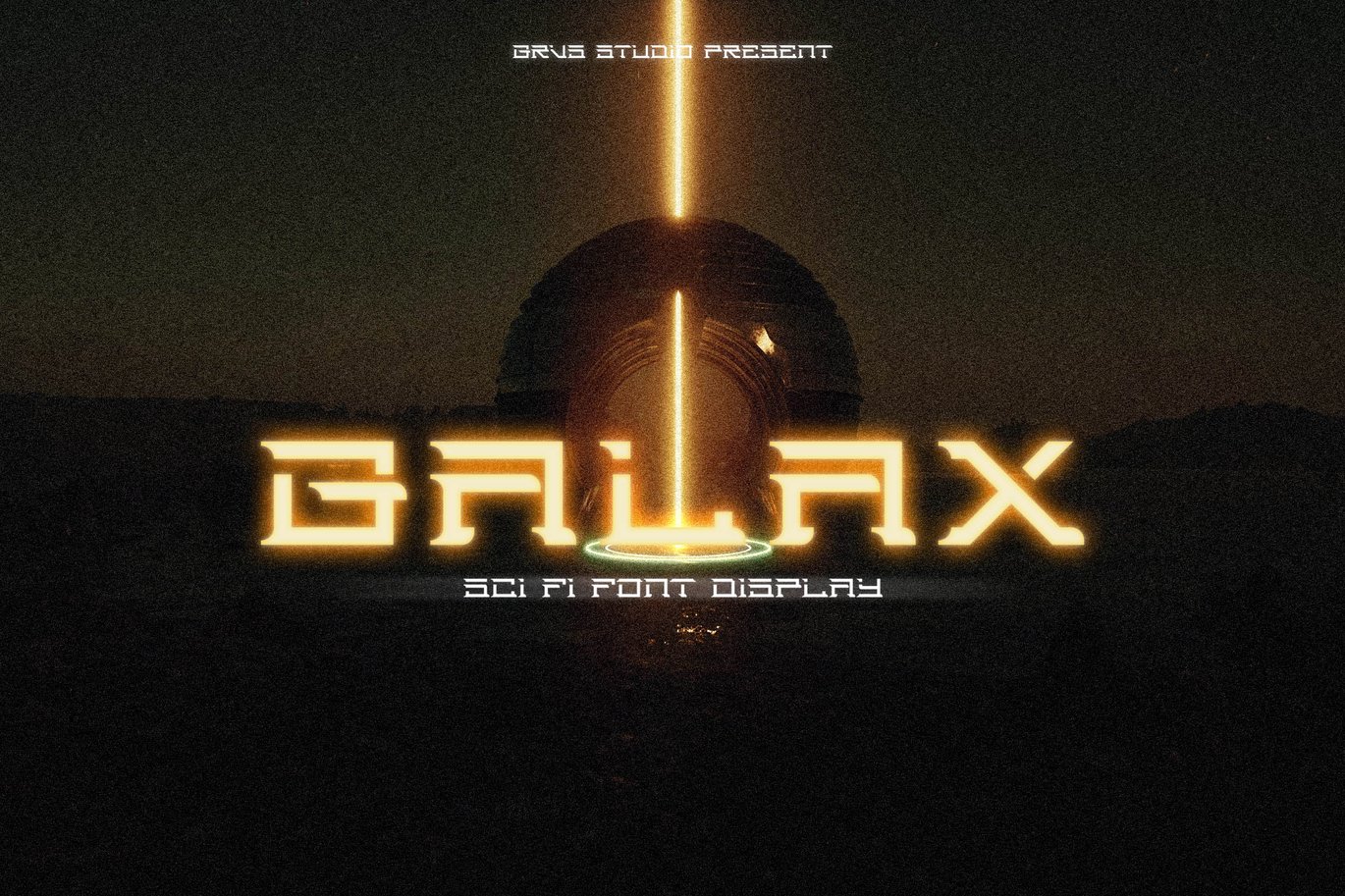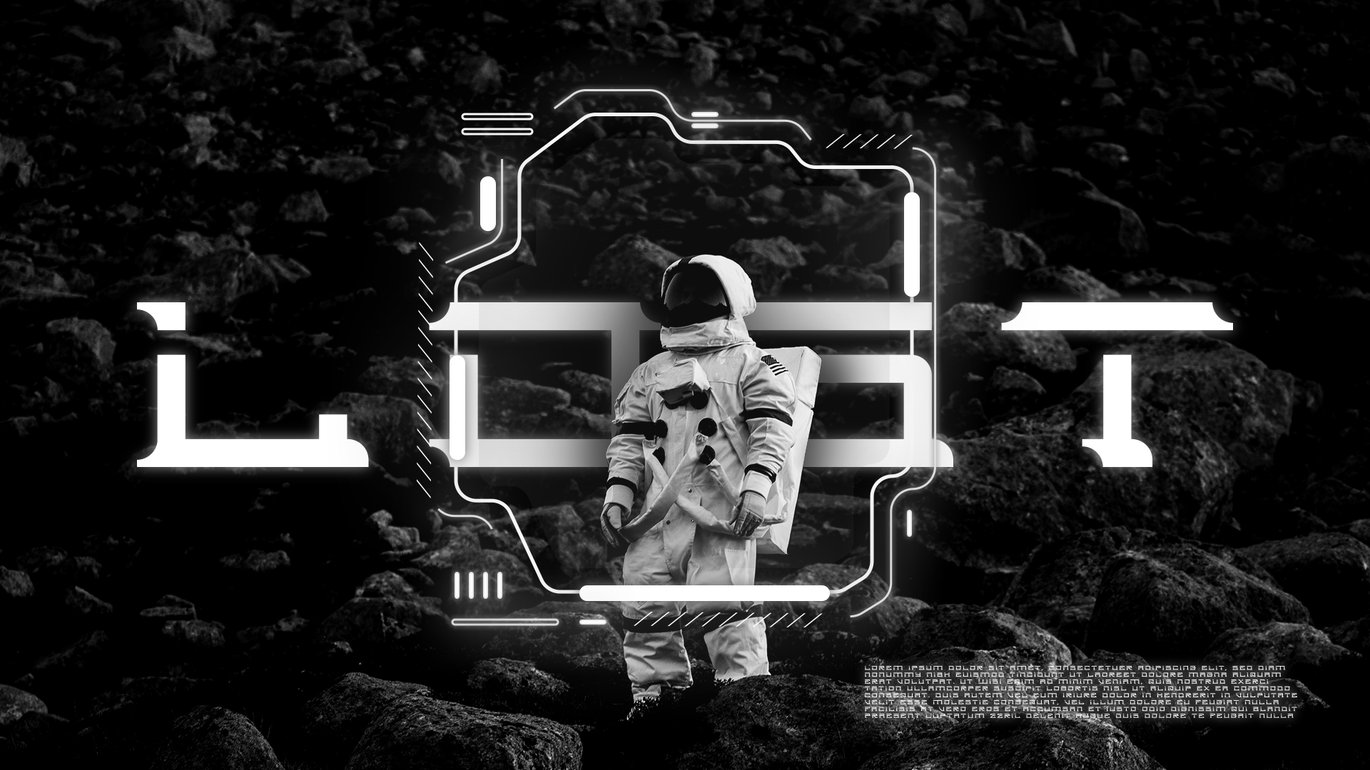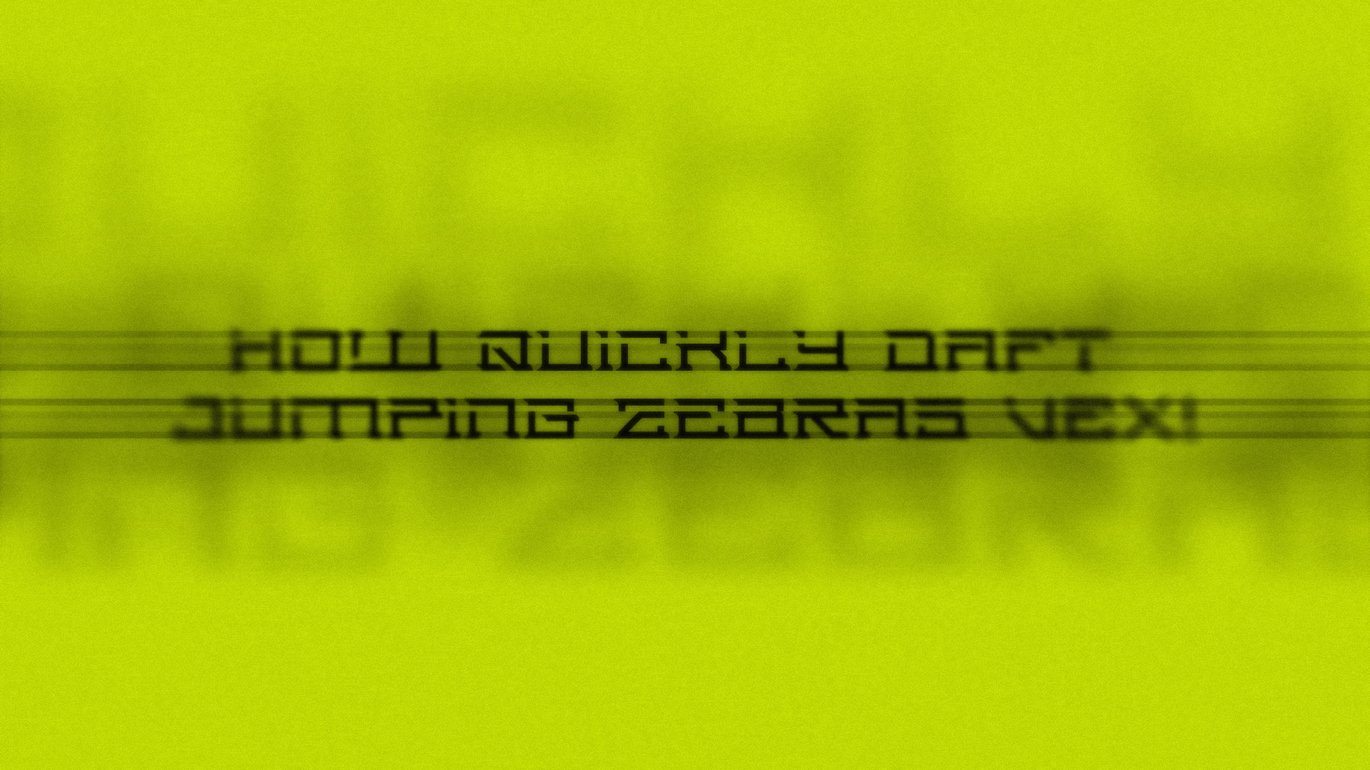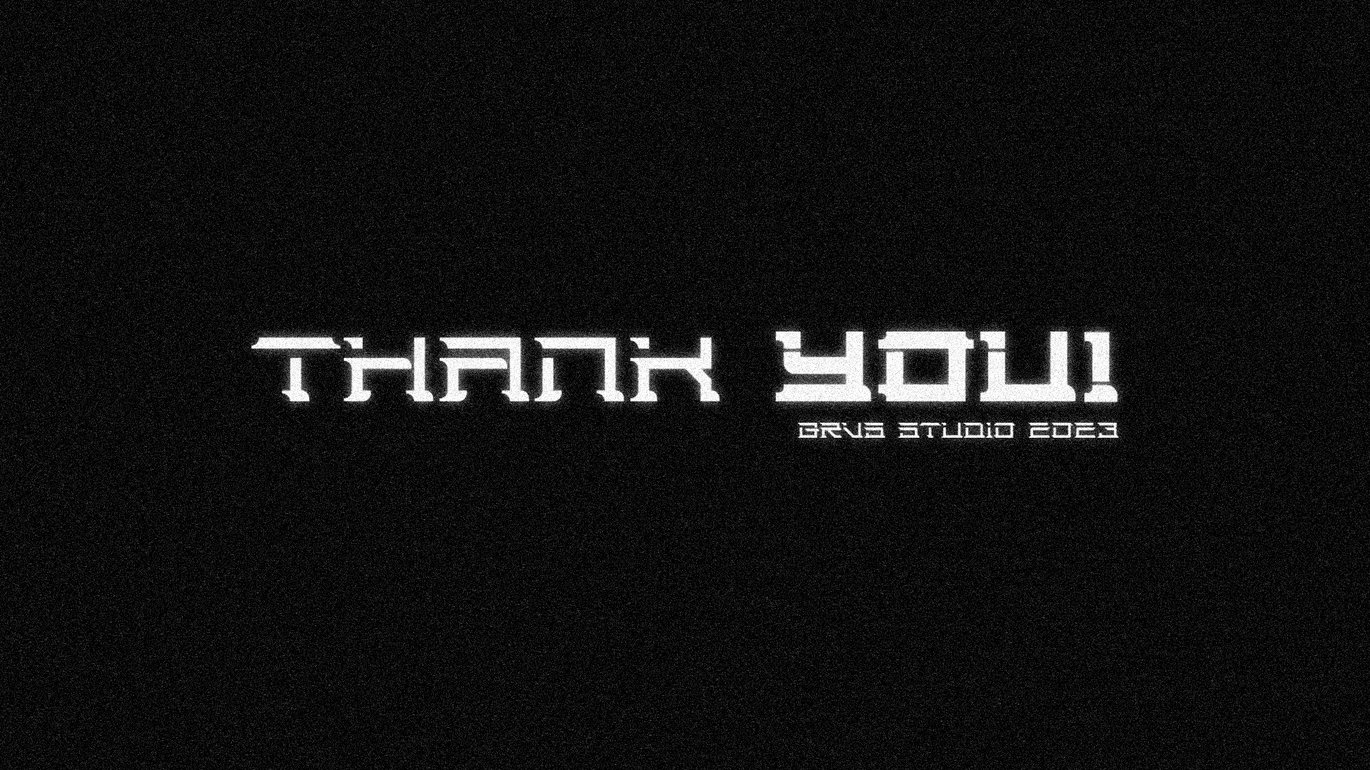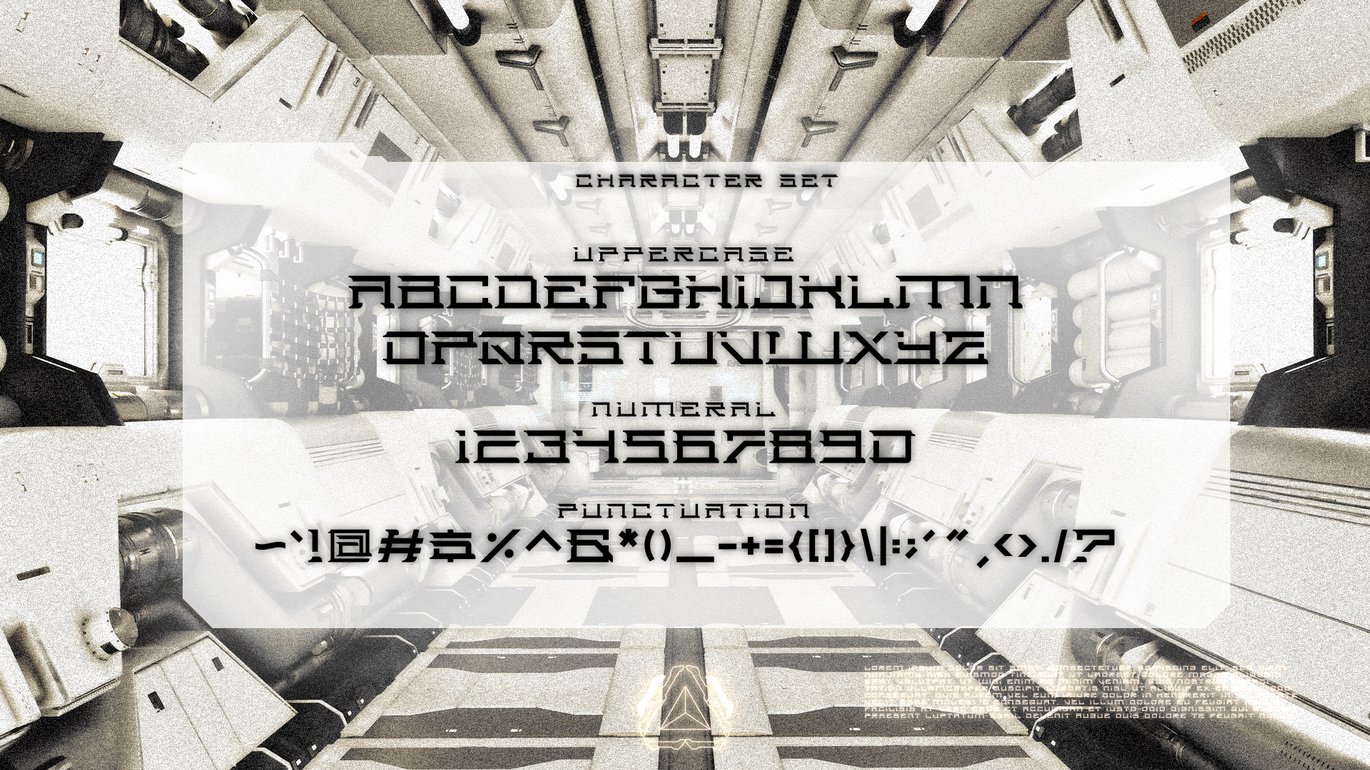
Galax Sci fi Font Display
GRVS Galax Sci fi Font Display is our new item that is suitable for your team logo, or community logo with a sci-fi theme.
Great for Logo, Sticker, Jersey, Invitation Card, Brochures, etc.